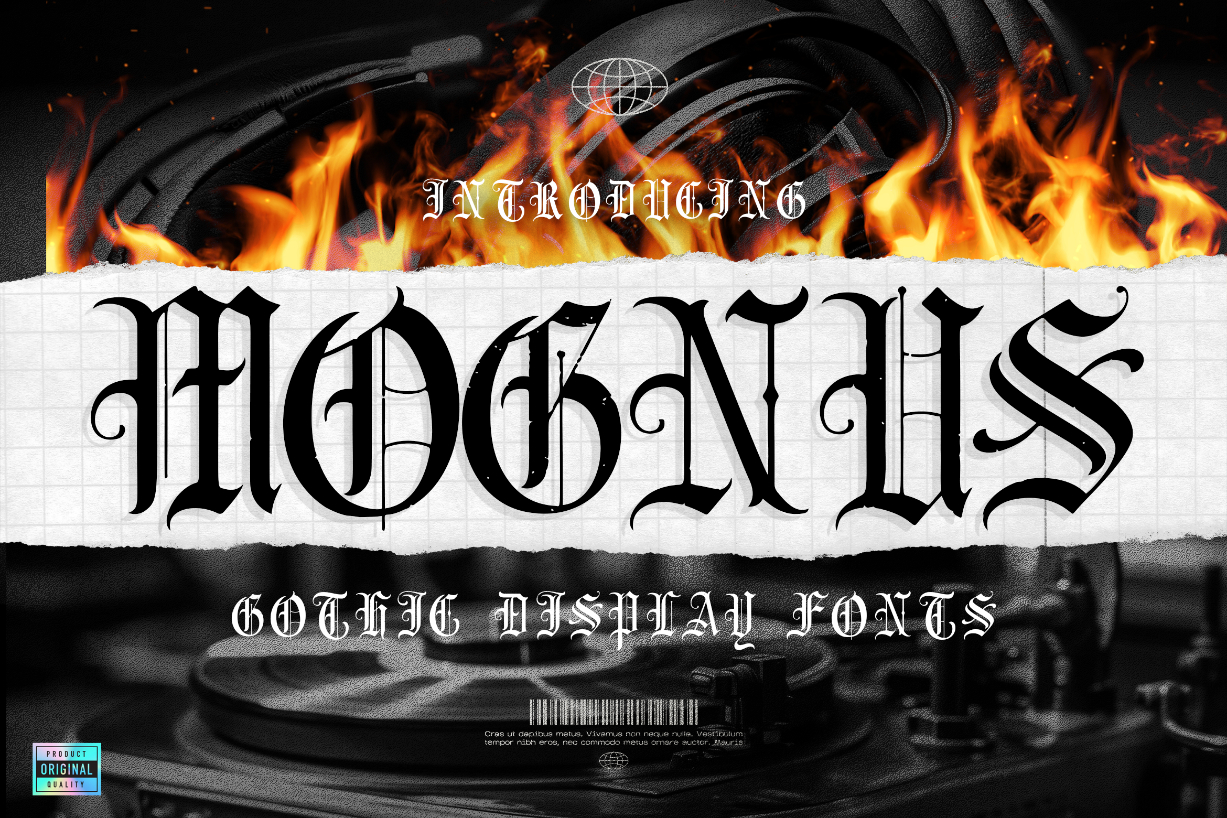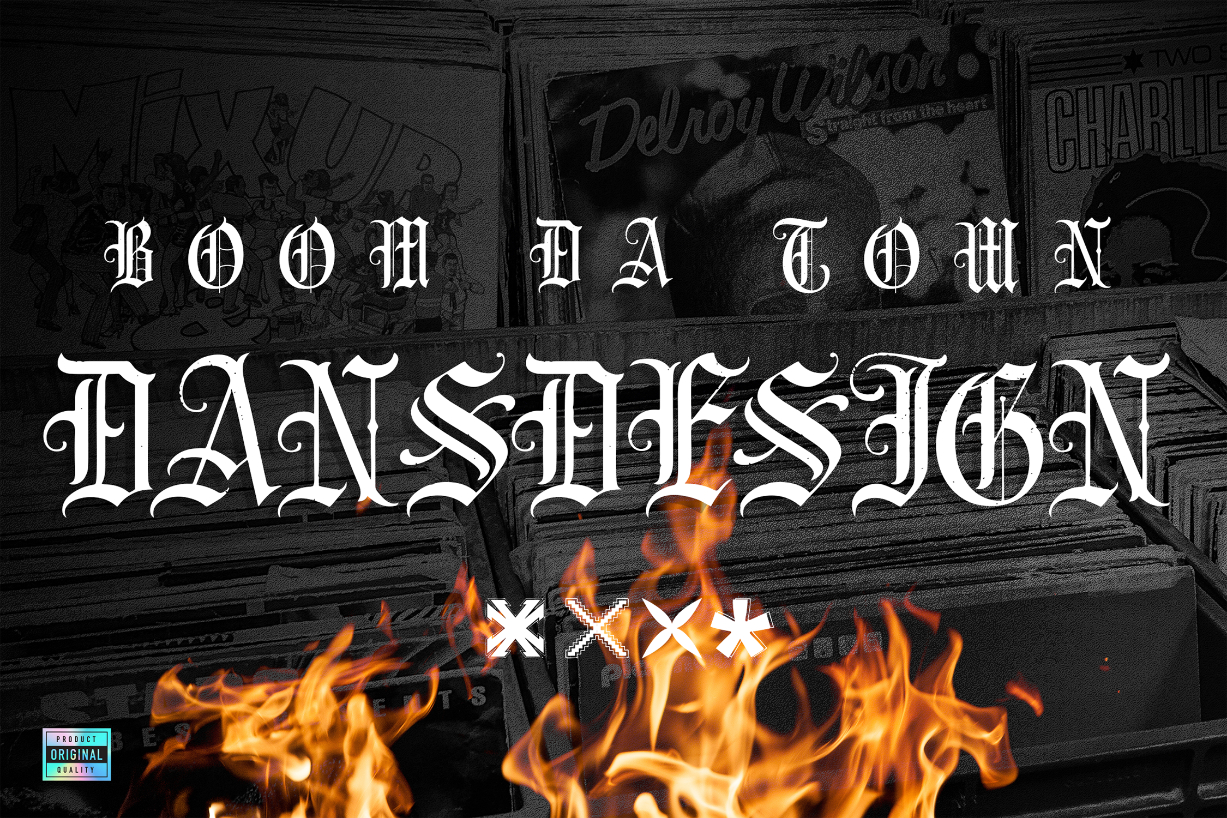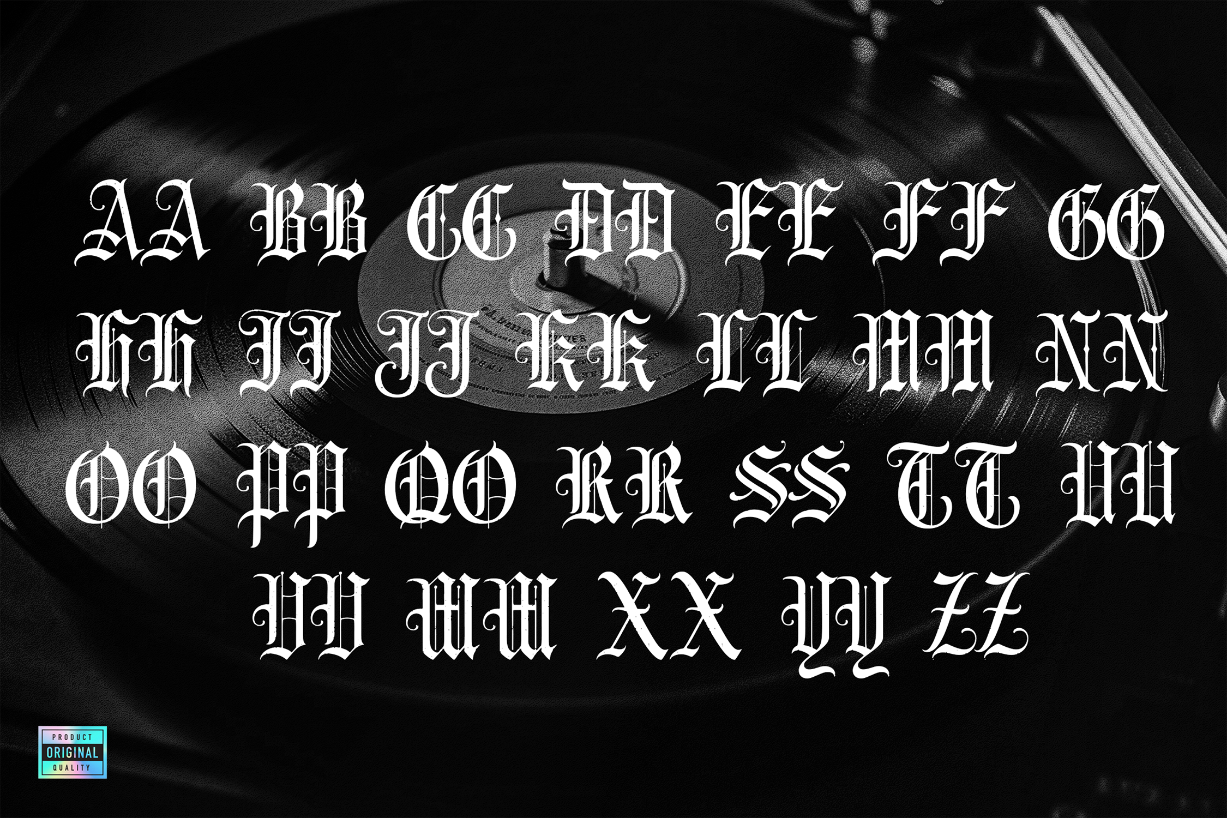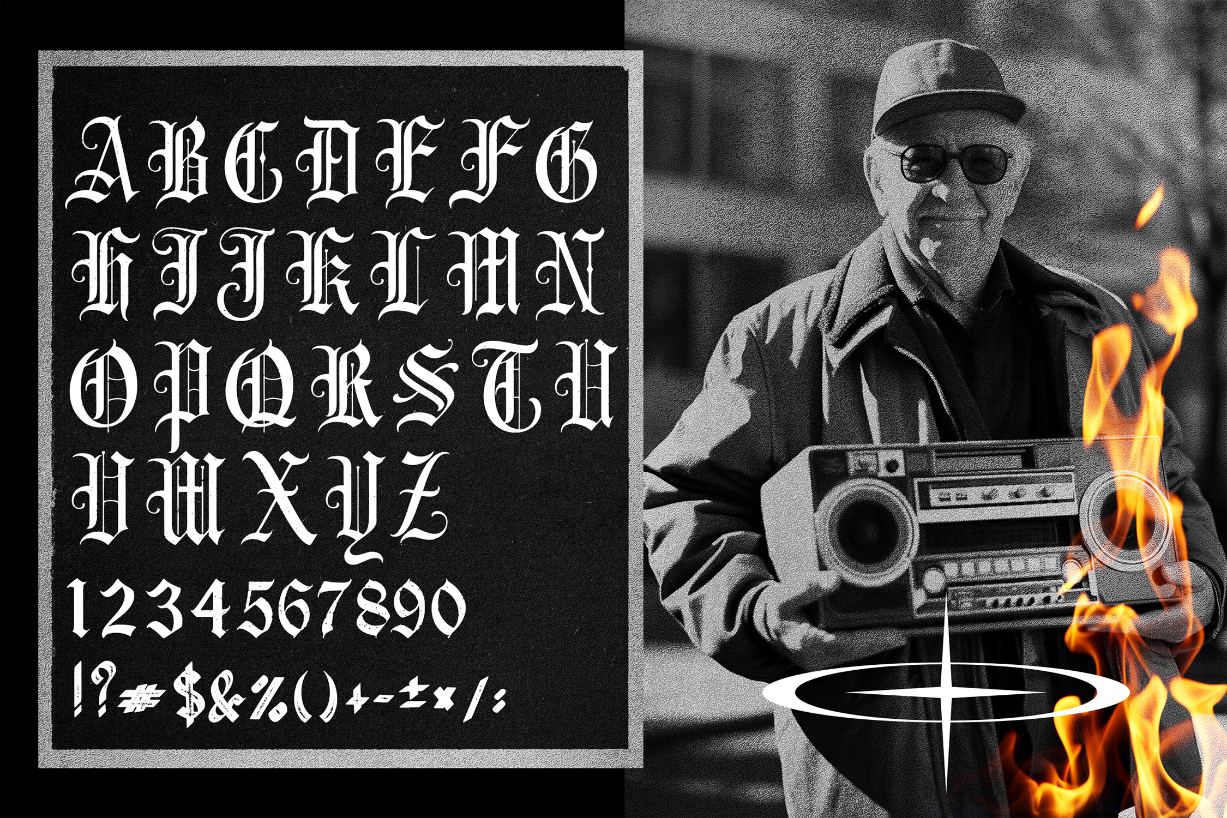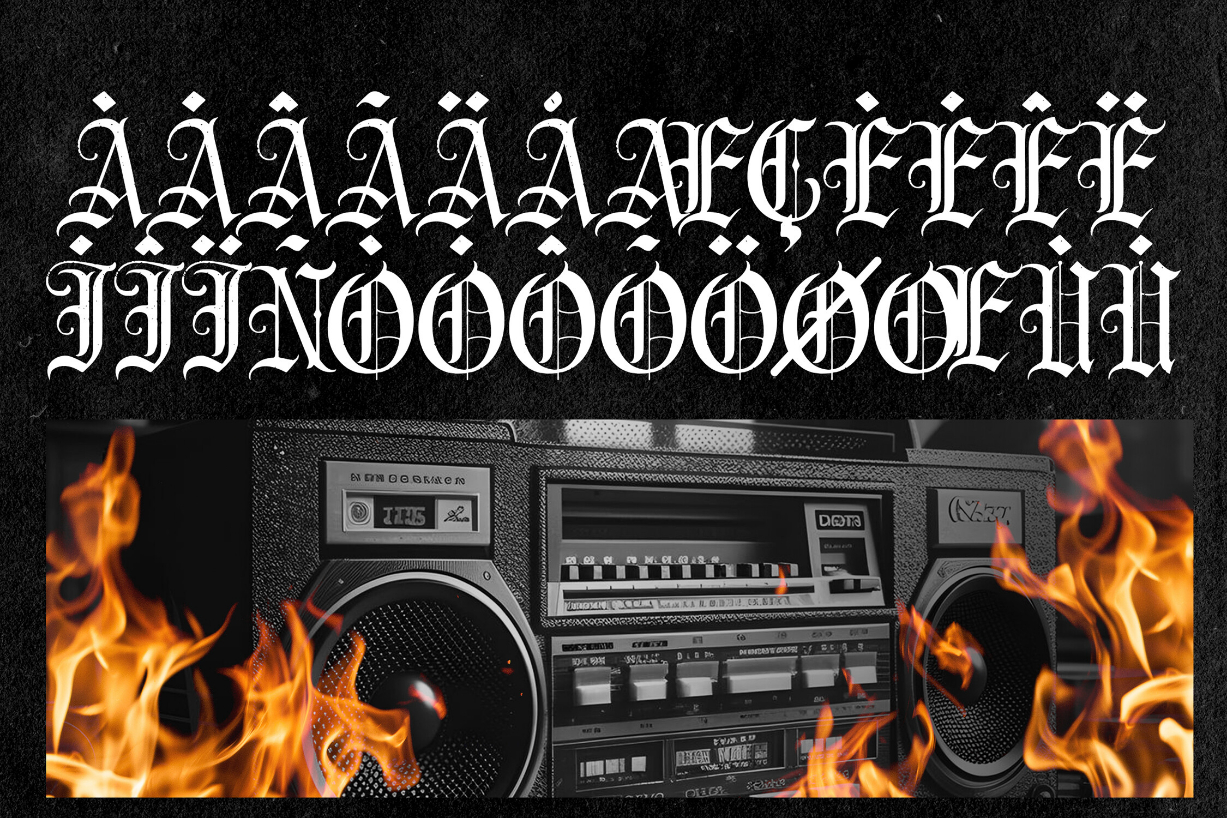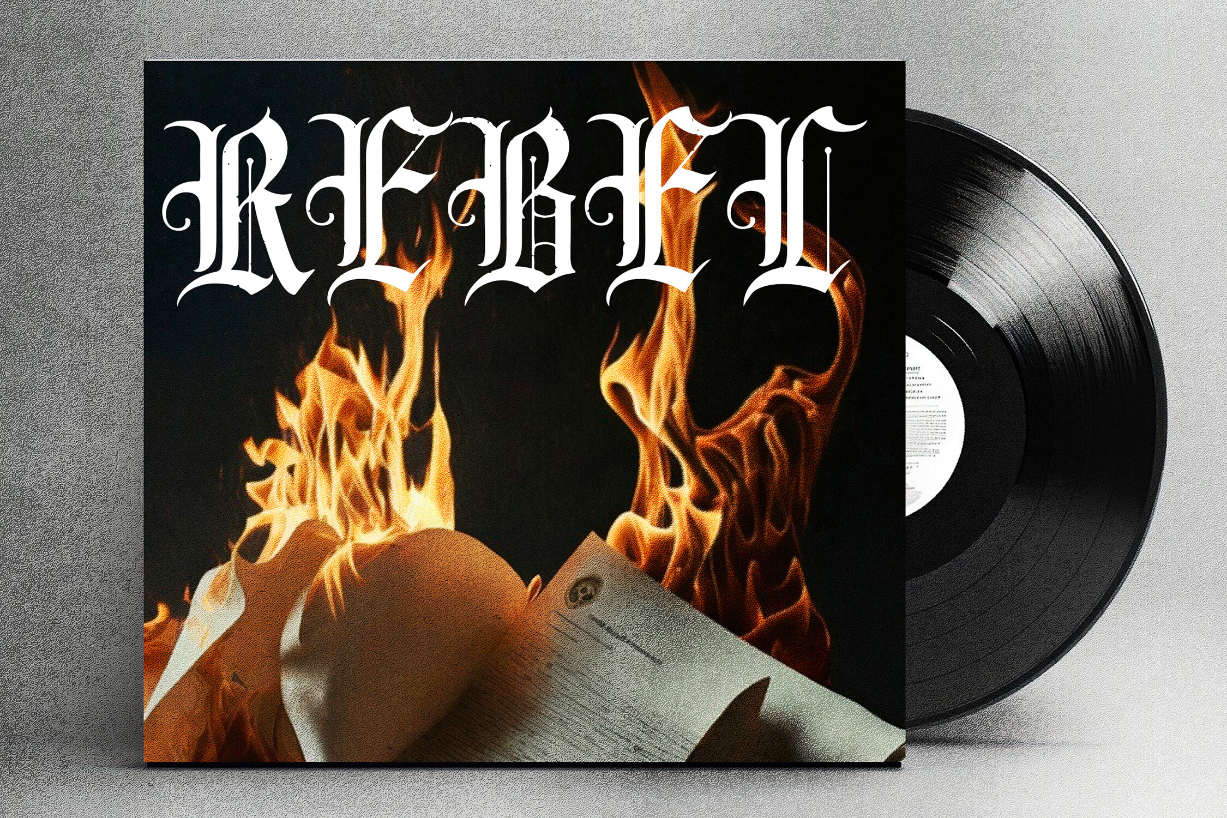
Mognus Font
About Mognus Font
Mognus is a captivating blackletter font exuding elegance and sophistication. Its intricate strokes and sharp angles evoke a sense of timeless beauty and authority. Ideal for formal invitations, branding, and editorial designs, Mognus commands attention and infuses any project with a touch of classic refinement and style.